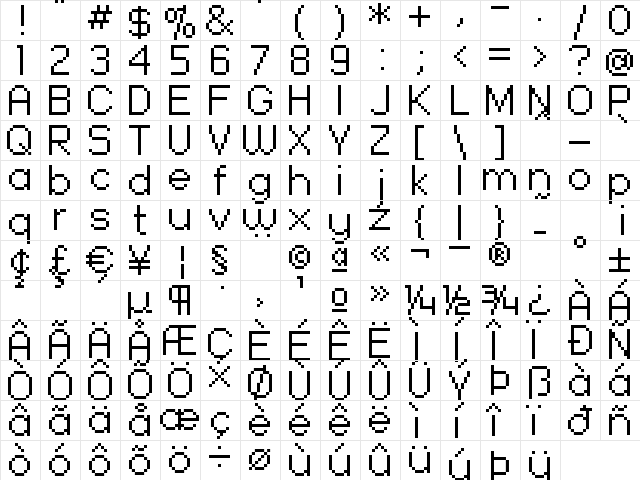
schoenecker 10_56 Regular
Design Context for schoenecker 10_56 Typeface
schoenecker 10_56 is a composed and adaptable typeface that performs quietly and consistently across a wide range of design contexts.
Pro Tip: Use schoenecker 10_56 in both headline and body roles to test its range before committing to a single application.